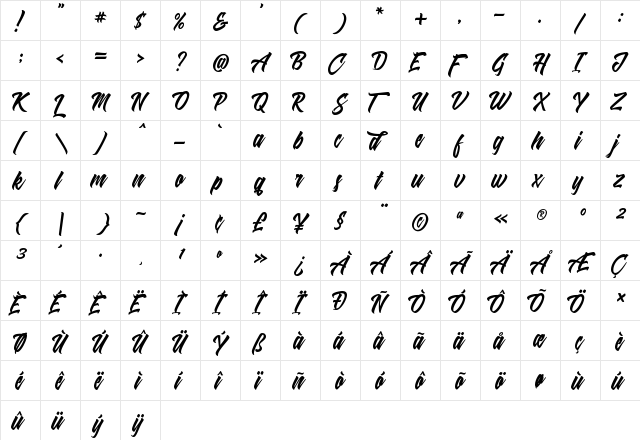
Shanders Free Regular
| Foundry | Dirtyline Studio |
| Designer | Hendra Maulia |
Design Context for Shanders Free Typeface
Shanders Free flows with the natural rhythm of handwritten lettering, making it ideal for designs that call for warmth and personal expression.